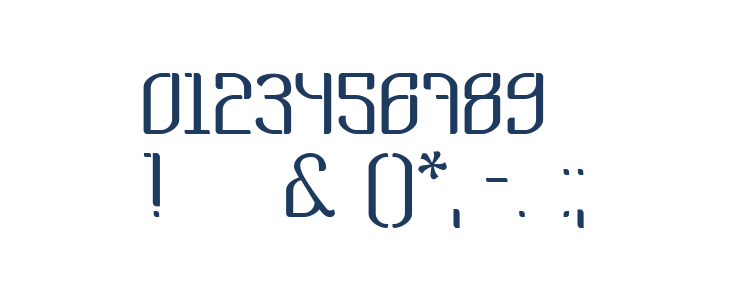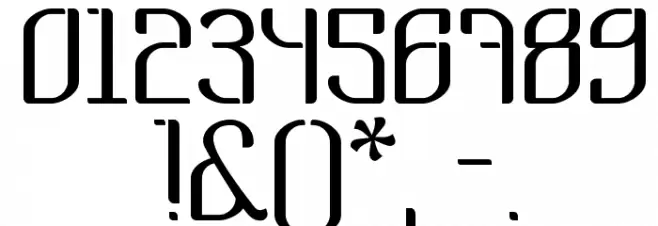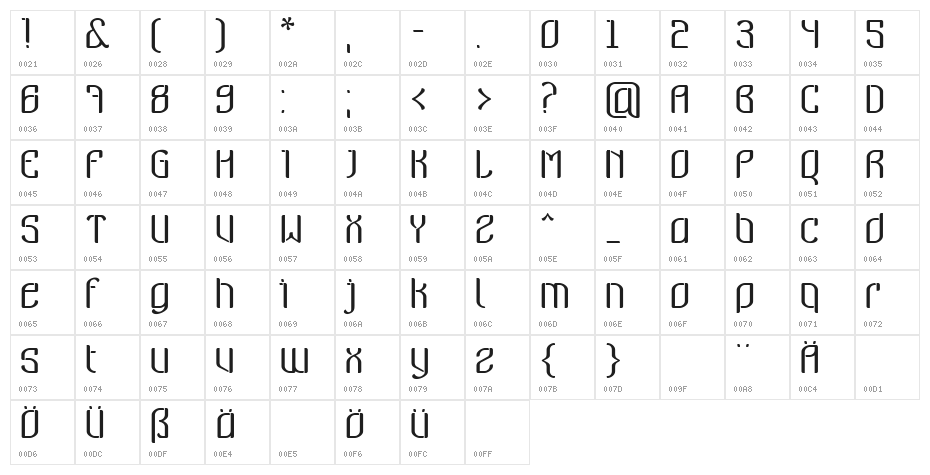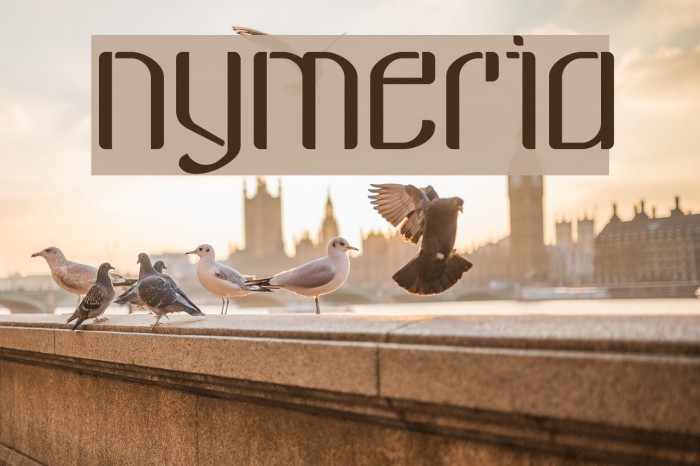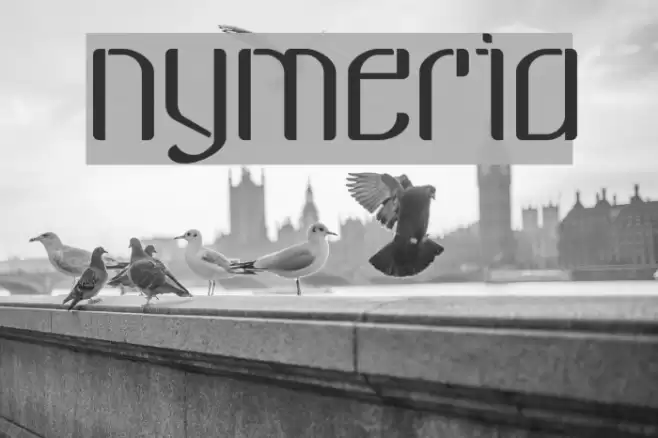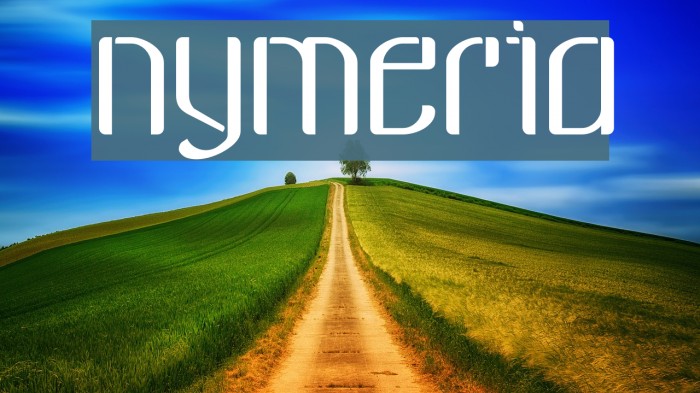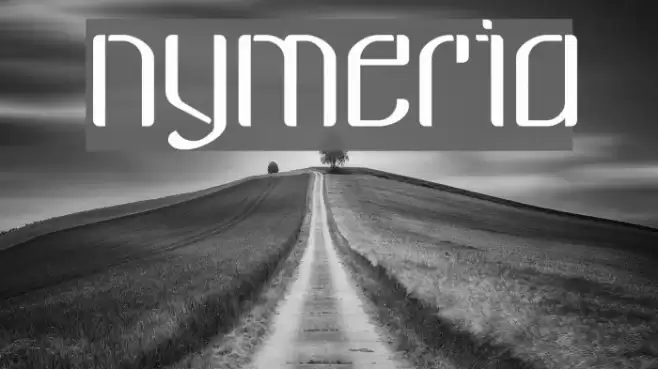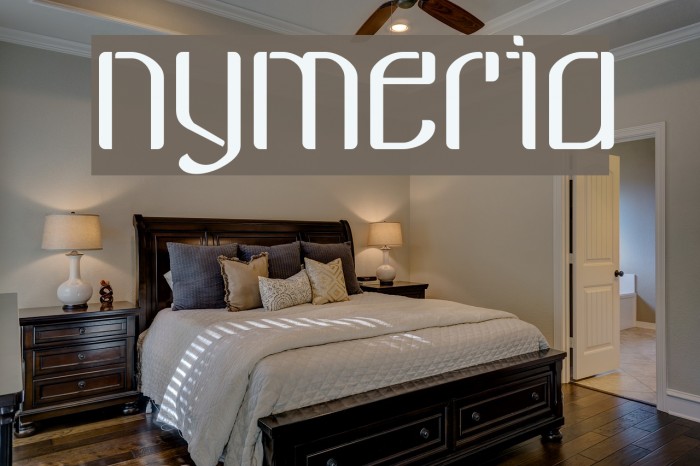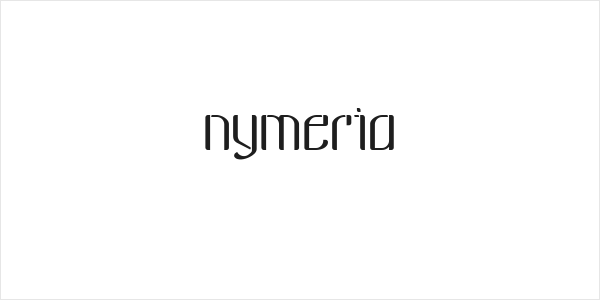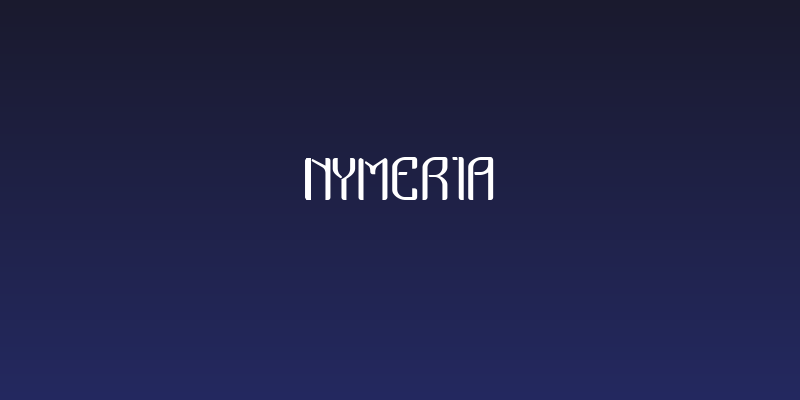
nymeria Font
nymeria Description
This font features a modern and sleek design with rounded edges and a geometric structure. The characters are uniform in height, giving it a clean and organized appearance. The uppercase letters are bold and prominent, while the lowercase letters maintain a consistent style with slightly softer curves. Numbers and special characters are designed to match the overall aesthetic, ensuring a cohesive look across all text elements. The font's unique style makes it suitable for contemporary design projects, offering a fresh and innovative feel.
| Use Case | Headlines, Logos, Digital Media |
| Proposed Projects | Ideal for branding, advertising, digital media, and modern web design projects. |